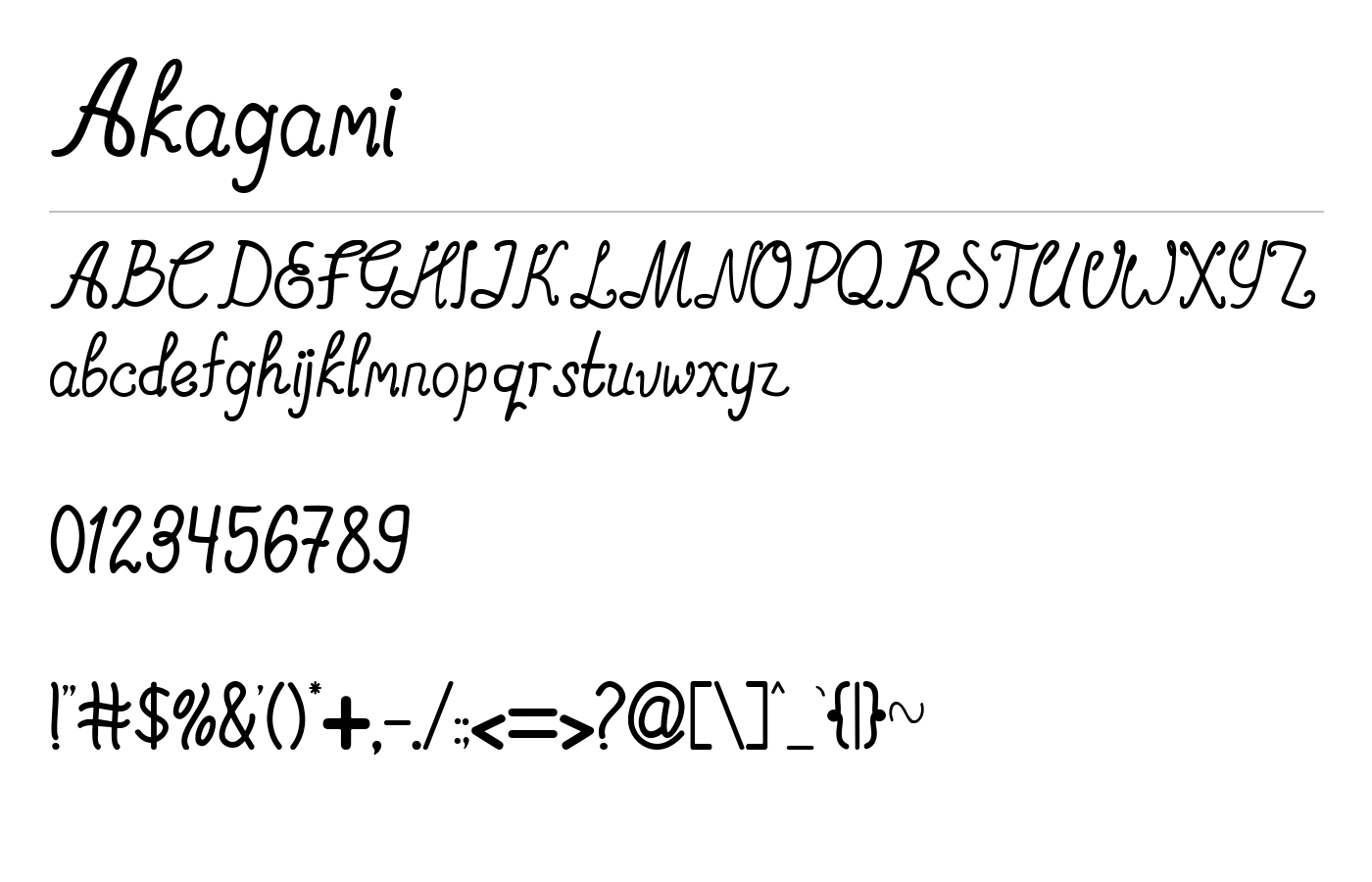
Akagami is a playful and elegant script font with a light and airy feel, featuring smooth, flowing strokes and a slightly upright stance. Its casual yet refined style makes it ideal for creative branding, invitations, and projects that want to convey friendliness and charm without losing sophistication. This font works well for headlines and logos where a personal, handwritten touch adds warmth and personality.
Akagami Font